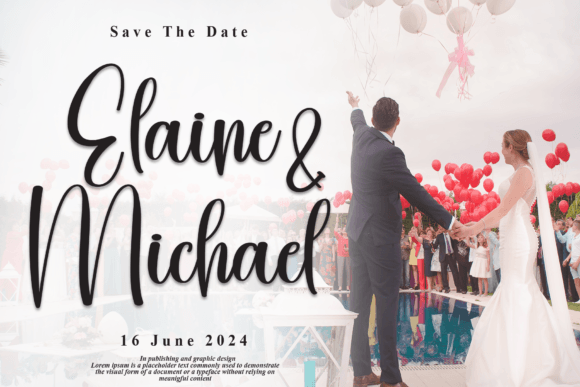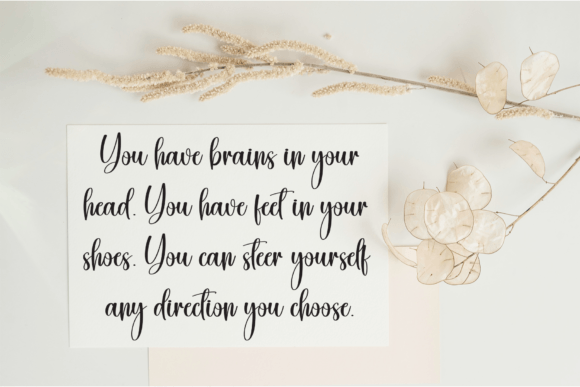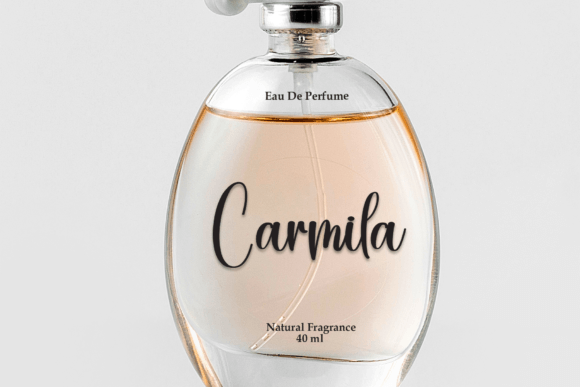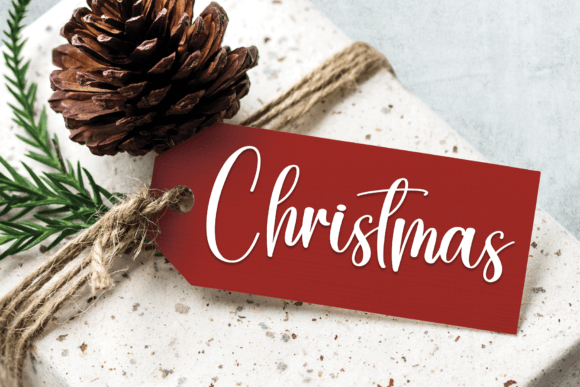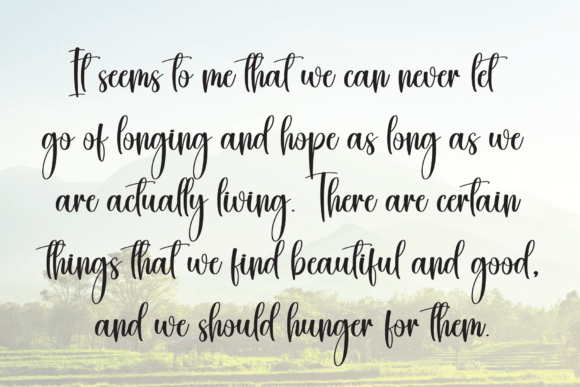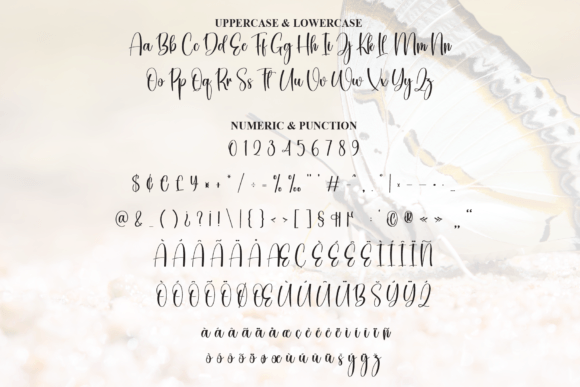
The Magic of Butterflies Font: Elevate Your Designs with Elegance and Charm
I’ll never forget the time I was working on a wedding invitation project, and my client asked for a font that exuded elegance and sophistication. I scoured the internet, tried out countless fonts, but nothing seemed quite right. That was until I stumbled upon Butterflies Font. Its fluid strokes and natural flow immediately captivated me, and I knew I had found the perfect fit. In this article, I’ll share my love for Butterflies Font, its features, and how to make the most of it in your designs.
An Honest Review of Butterflies Font
- ✨ Elegant and charming: Butterflies Font is perfect for adding a touch of sophistication to any design.
- ✅ Fluid strokes: The font’s natural flow creates a beautiful, handwritten look that’s hard to achieve with other fonts.
- 🎨 Versatile: From invitations to branding and social media, Butterflies Font can be used in a variety of design projects.
- 💕 Warm and creative: This font brings a sense of warmth and creativity to any design, making it perfect for designers, crafters, and creative hobbyists.
While Butterflies Font is an amazing addition to any design project, there are a few things to keep in mind:
- ⚠️ Limited use in body text: Due to its elegant and cursive nature, Butterflies Font might not be the best choice for long blocks of body text.
- 🤔 Requires attention to spacing: To get the most out of this font, you may need to adjust the spacing between letters and words to achieve the desired look.
The Story Behind Butterflies Font
Butterflies Font was created by a talented designer who wanted to capture the essence of elegance and charm in a font. Inspired by the delicate wings of butterflies, this font is designed to bring a sense of sophistication and whimsy to any design. Whether you’re a designer, crafter, or creative hobbyist, Butterflies Font is sure to become a favorite in your font collection.
Q: Is Butterflies Font suitable for body text?
A: While Butterflies Font is an amazing font, it’s not ideal for long blocks of body text. Its elegant and cursive nature makes it better suited for titles, headings, and short paragraphs.
Q: Is Butterflies Font easy to read?
A: Butterflies Font is designed to be elegant and charming, but it may not be the most readable font for small text sizes. It’s best used for titles, headings, and short paragraphs where readability is not a concern.